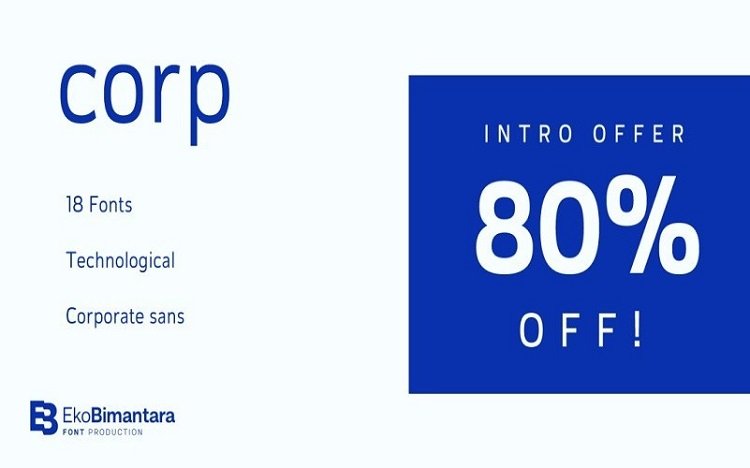
Corp Sans Serif Font
Corp Sans Serif Font is a new contemporary sans serif typeface influenced by the post-modernism style. This typeface is has a very neutral look, thus making this new typeface has versatility for use in all kinds of modern design. It’s designed and shared by Eko Bimantara.
Corp designed to be fit for corporate nuances. its letter forms shaped in tune with technological feels. Its shown simplicity, minimal stroke contrast, moderate spacing. Its consist of 18 styles from Thin to Black, contain 470+ glyphs that support broad Latin language, contain variation of lining figures, and some alternates glyphs.